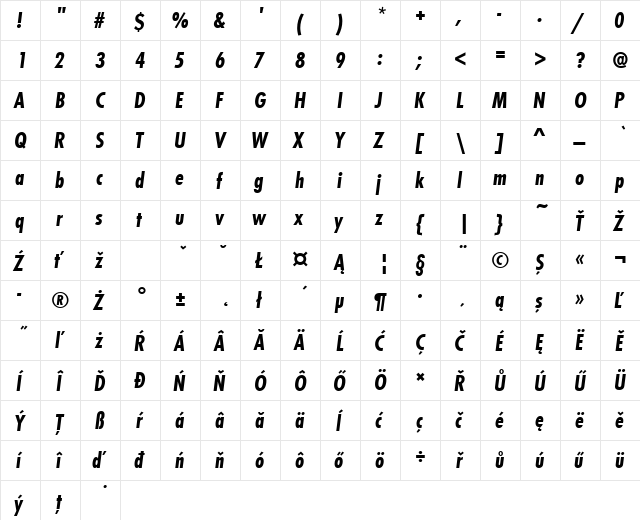
FuturaTEEBolCon Italic Font Preview
FuturaTEEBolCon Italic
FuturaTEEBolCon Italic Font Details
Design Context for FuturaTEEBolCon Typeface
FuturaTEEBolCon has a distinctly futuristic character, with geometric precision and clean angles that feel at home in technology, gaming, and sci-fi contexts. Its italic angle brings a sense of urgency and motion to the letterforms.